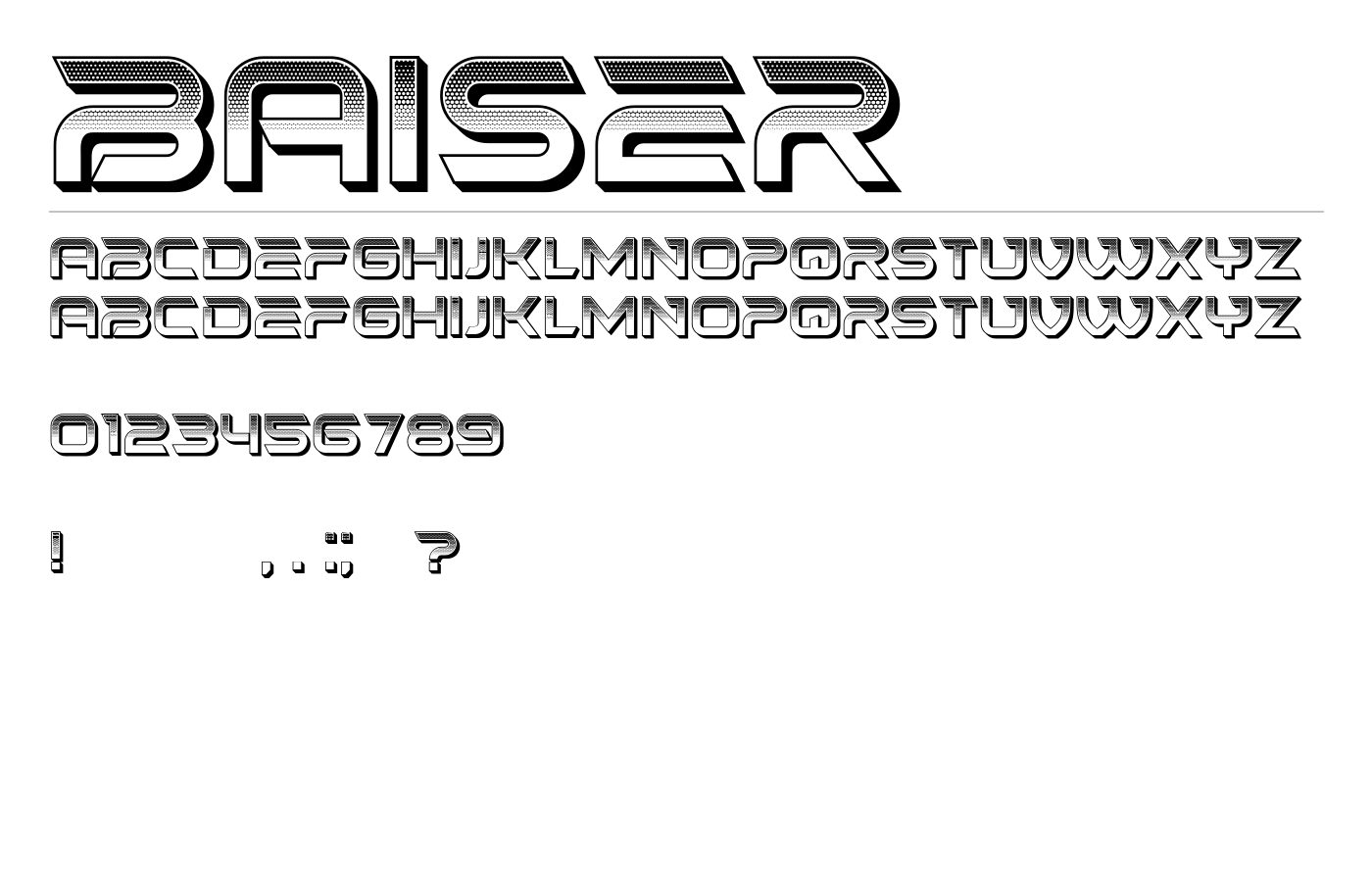
Baiser is a bold, futuristic sans serif font with a distinctive three-dimensional, layered shading effect that adds depth and a tech-inspired vibe. Its strong geometric shapes and uniform weight make it ideal for eye-catching headlines and logos in modern, creative, or digital-focused branding. This font works well in projects that seek a dynamic, innovative aesthetic with a slightly retro-futuristic feel.
Baiser Font
About Baiser Font
| Font family | Baiser Font |